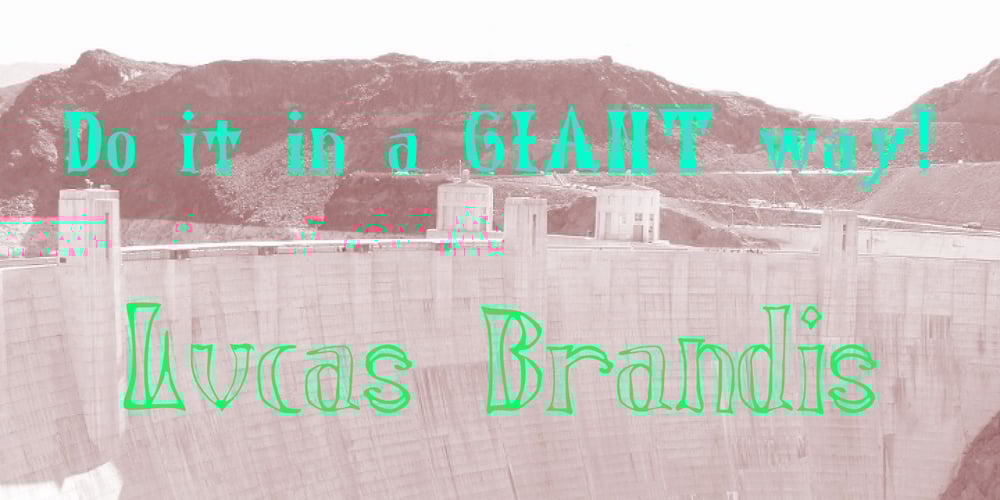
Lucas Brandis Font Family was designed by Shane Brandes and published by Proportional Lime. Lucas Brandis contains 2 styles and family package options. In the early days of printing everything had to be worked out from scratch. This set of lettering is based on section headings used by the Printer Lucas Brandis (no known relation), the first printer to operate in the city of Lübeck around 1473. They remind me of a medieval version of the spray paint graffiti so often seen on the sides of trains. A bit on the crude side, but also and importantly extremely noticeable. So whether you use it for creating old styled printing or some wild modern eye grabbing text item, its robust and sturdy shapes will be certain to grab the eye.